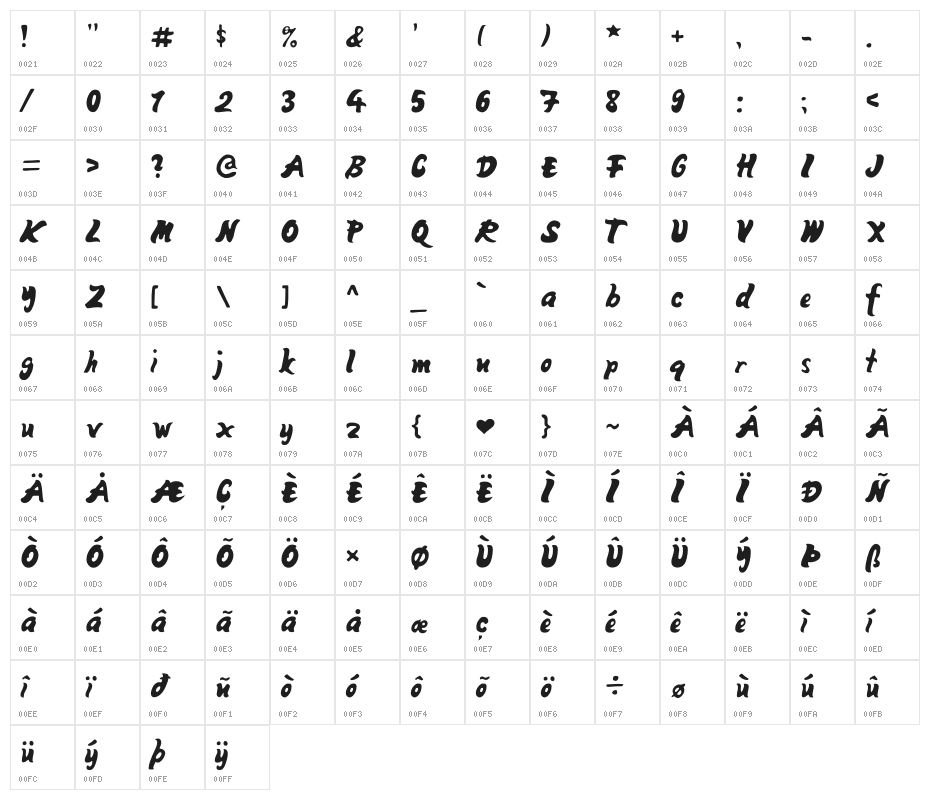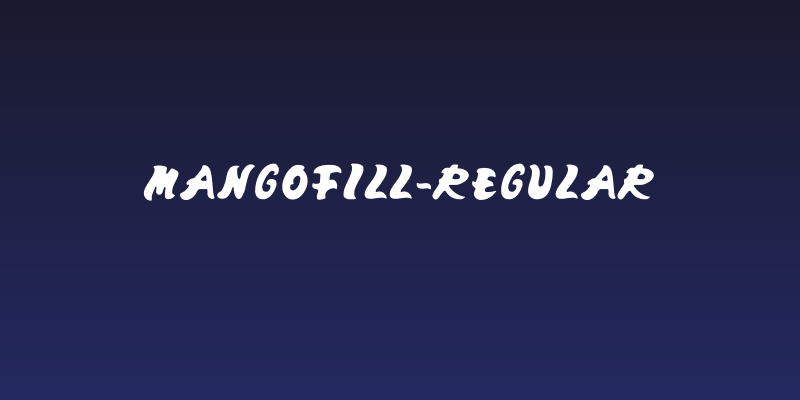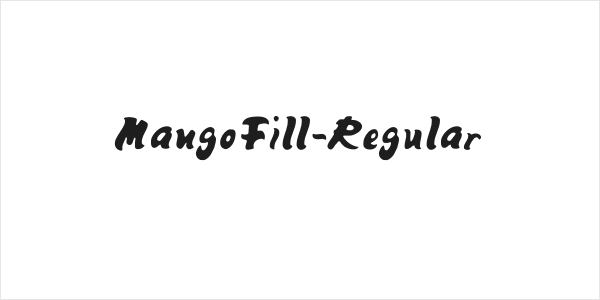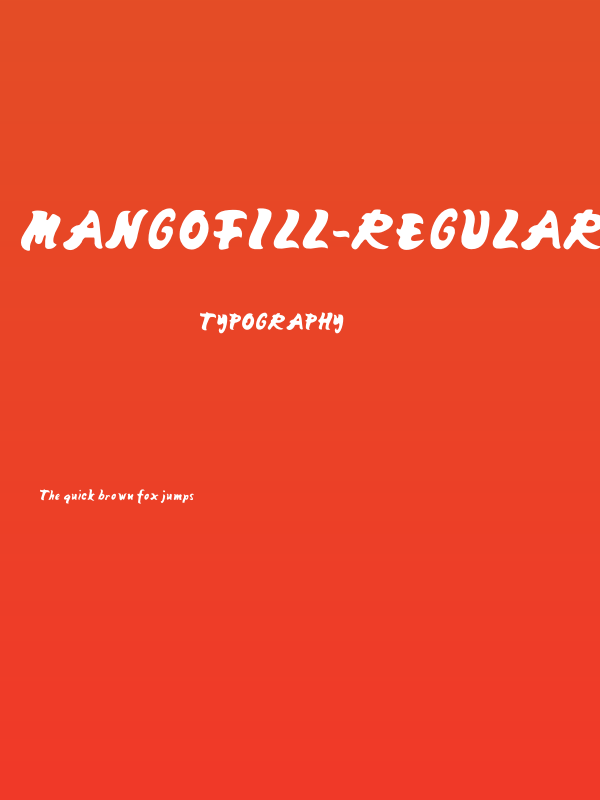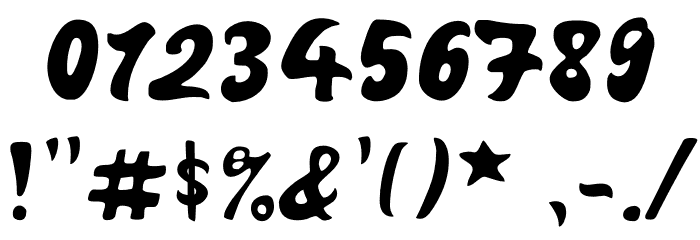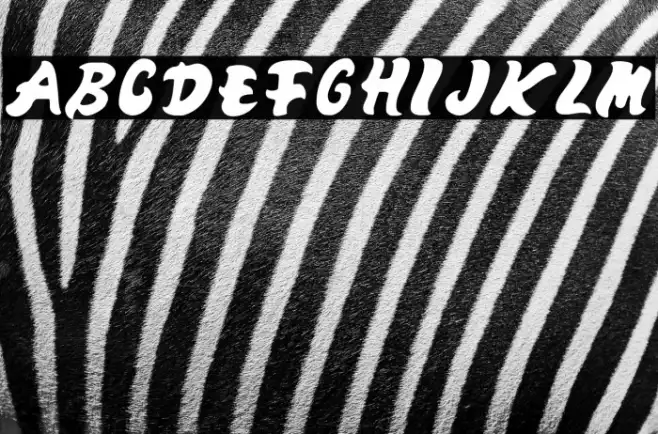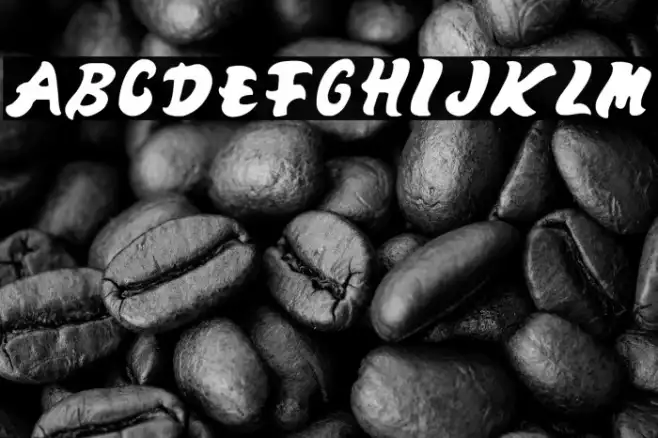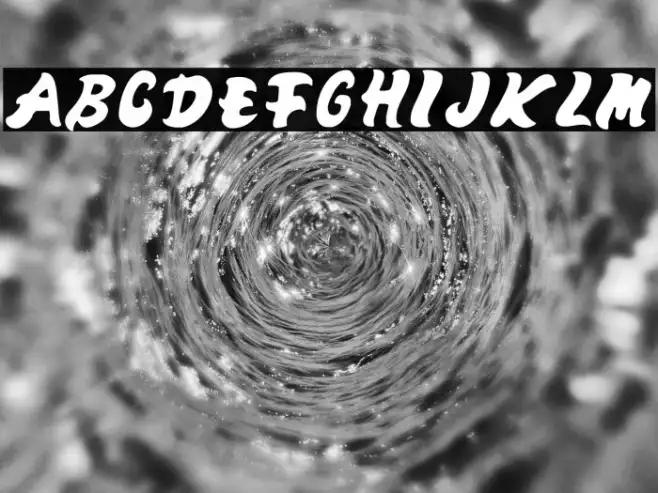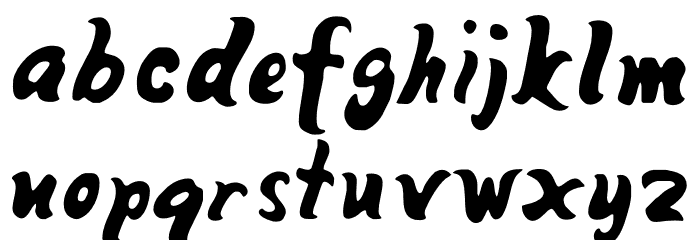
MangoFill-Regular Font
MangoFill-Regular Description
This font features a bold and playful style with a hand-drawn appearance. The characters are thick and rounded, giving a sense of warmth and friendliness. The uppercase and lowercase letters maintain a consistent flow, with slight variations that add to the organic feel. Numbers and special characters are equally bold, ensuring readability and a cohesive look across all elements. The font's unique style makes it stand out, ideal for creative and informal projects.
| Overall Style | Playful, Creative |
| Proposed Projects | Ideal for children's books, playful branding, posters, and creative invitations. |